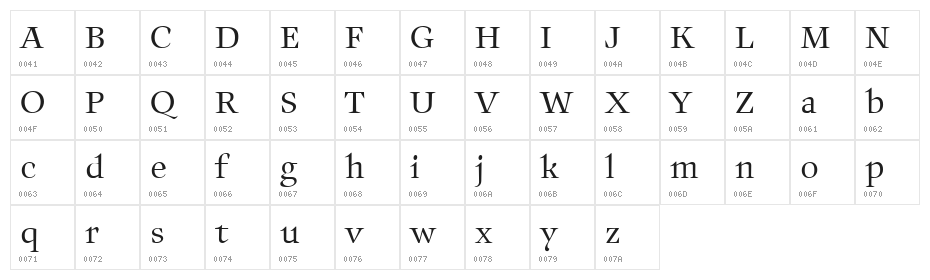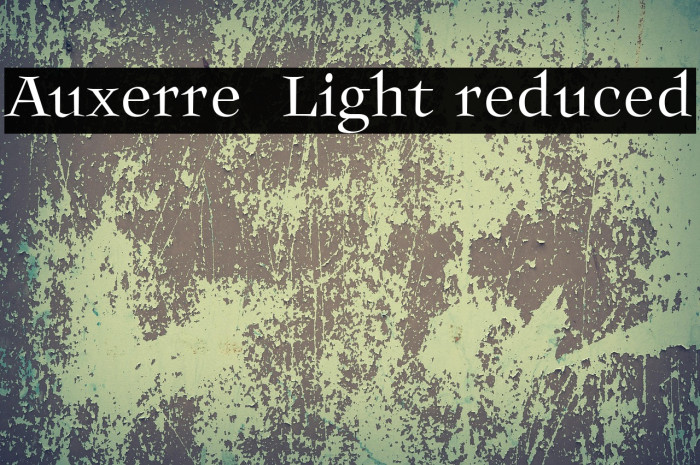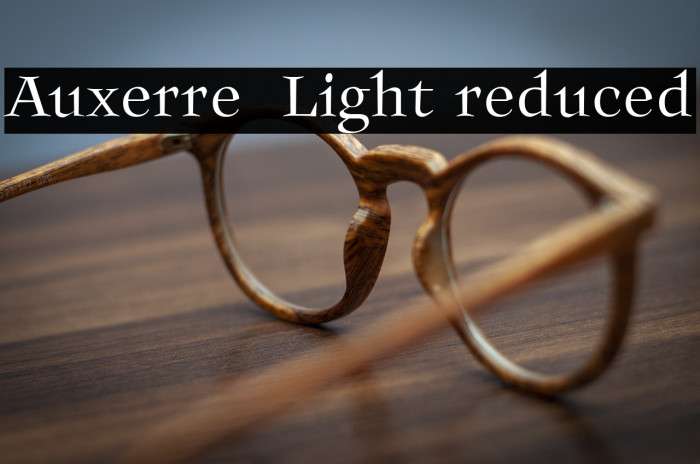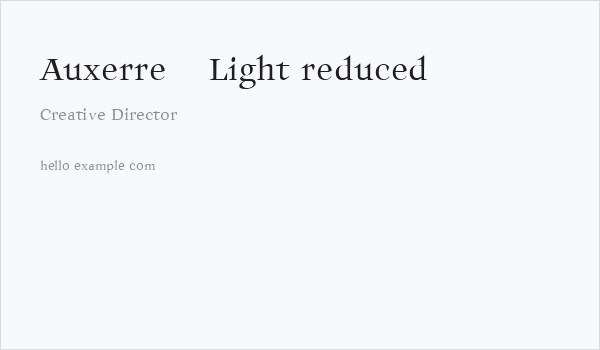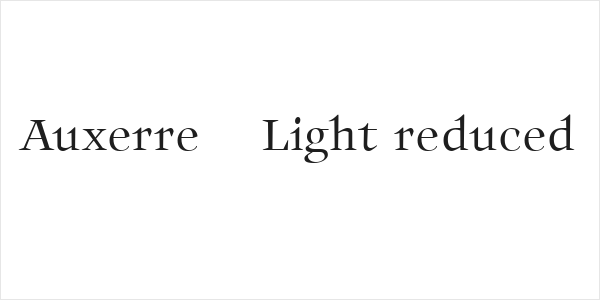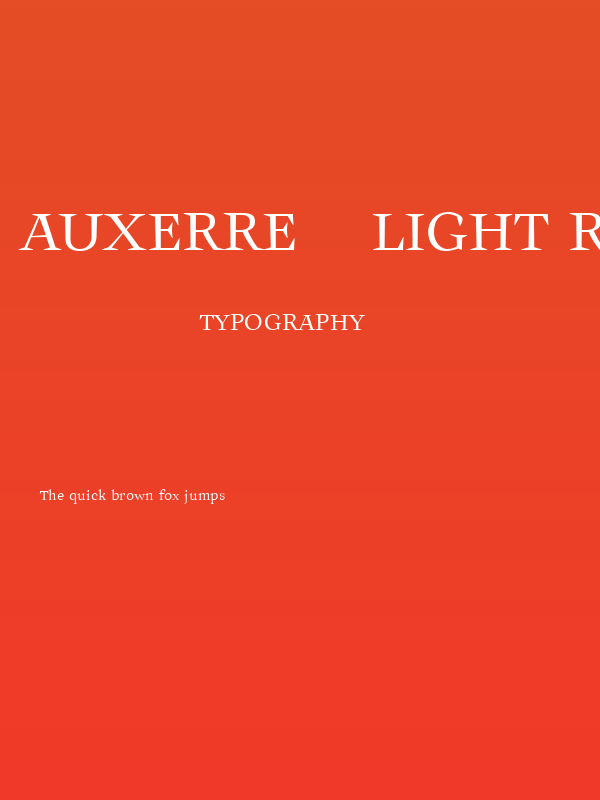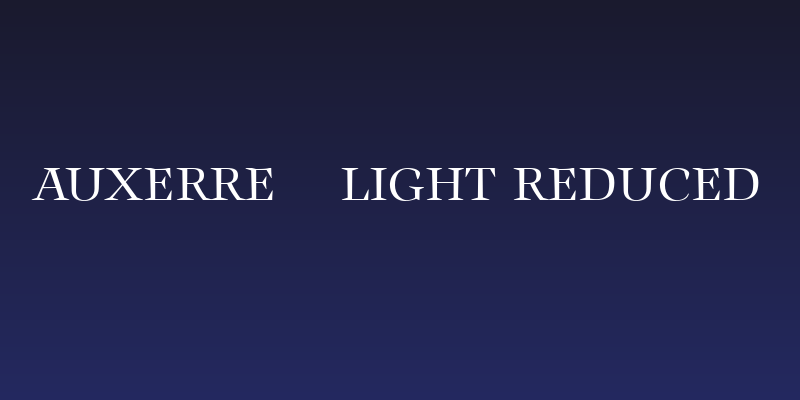
Auxerre 45 Light reduced Font
Auxerre 45 Light reduced Description
This font features a classic serif style with elegant, thin strokes and pronounced serifs that give it a sophisticated and timeless appearance. The uppercase letters are well-proportioned, with a slight contrast in stroke thickness that adds to their readability. The lowercase letters maintain a consistent style, with smooth curves and sharp serifs that enhance their legibility. The numerals are clear and distinct, matching the overall aesthetic of the alphabet. Special characters are designed with the same attention to detail, ensuring a cohesive look across all glyphs.
| Proposed Projects | Ideal for use in editorial design, book covers, formal invitations, and branding projects that require a touch of elegance and tradition. |